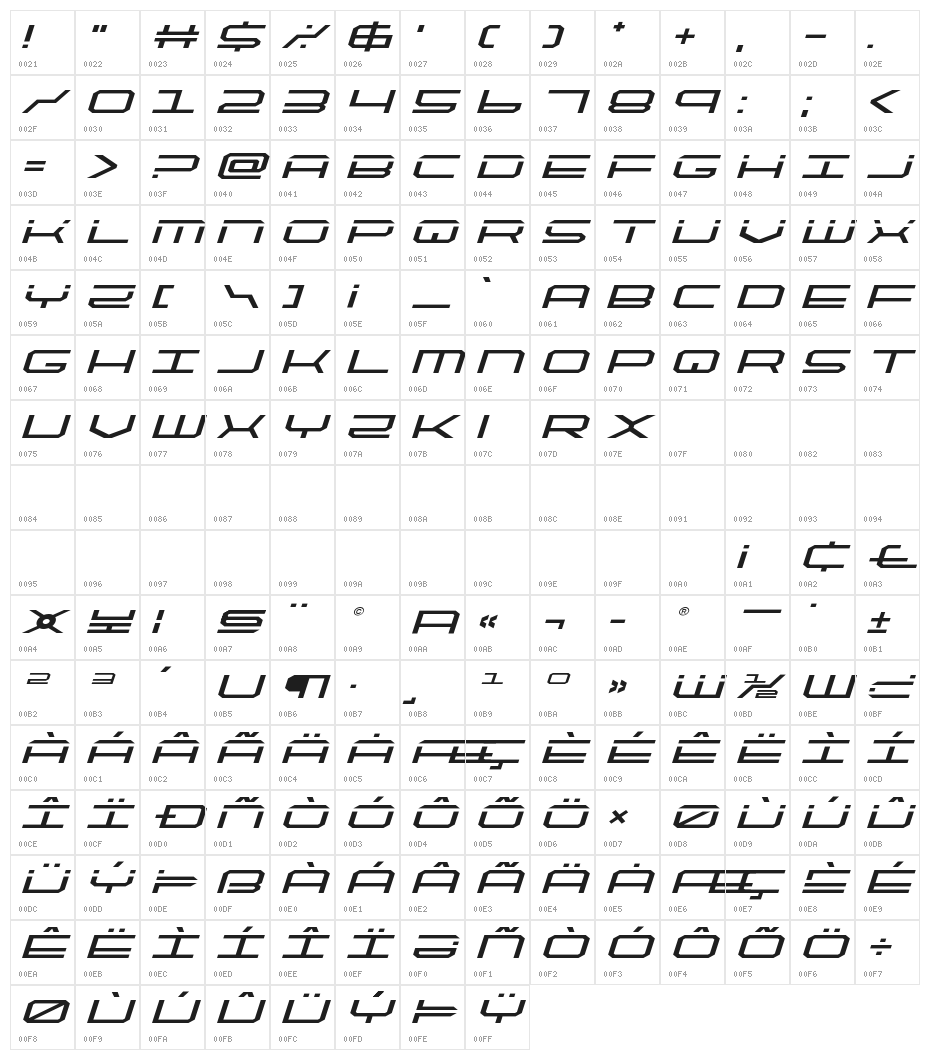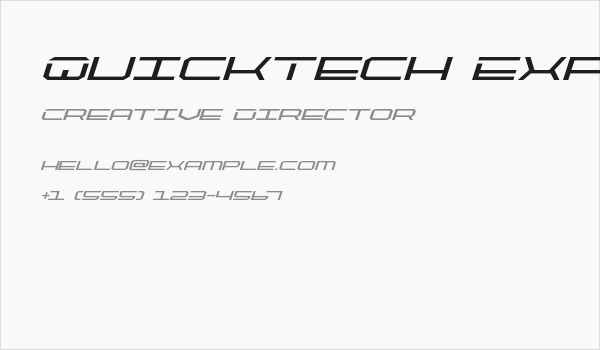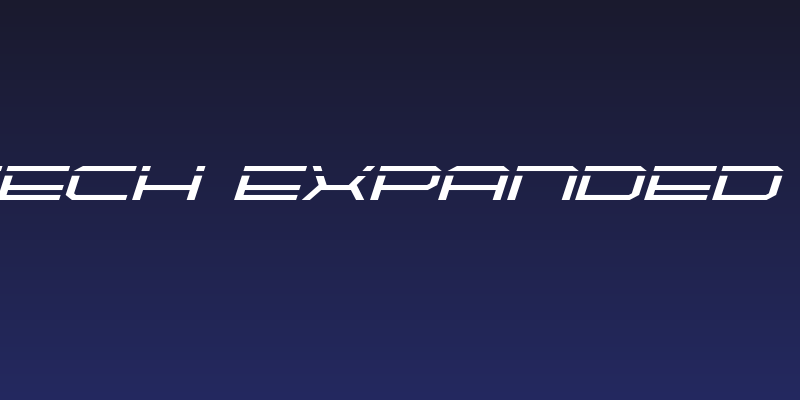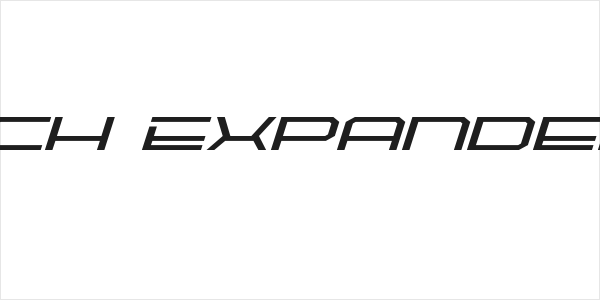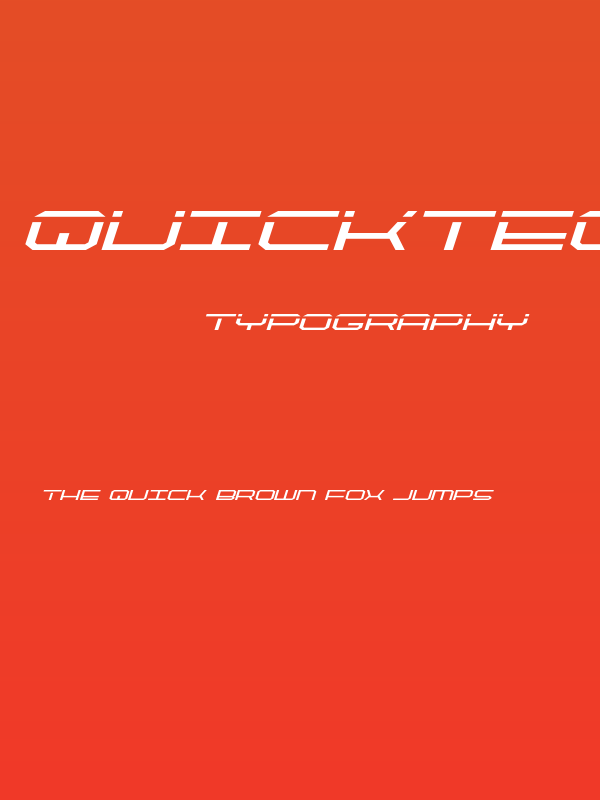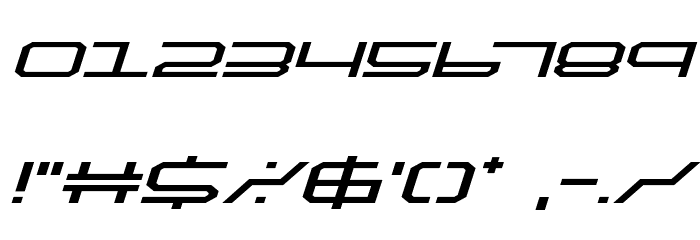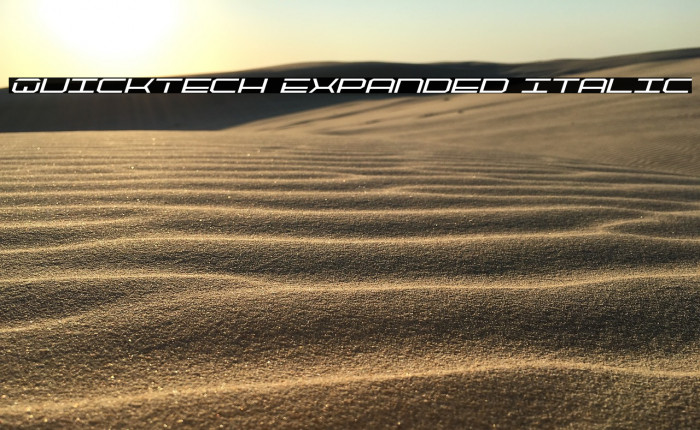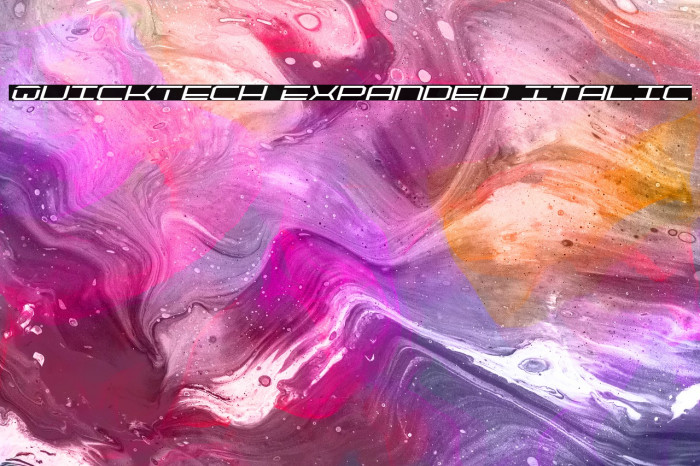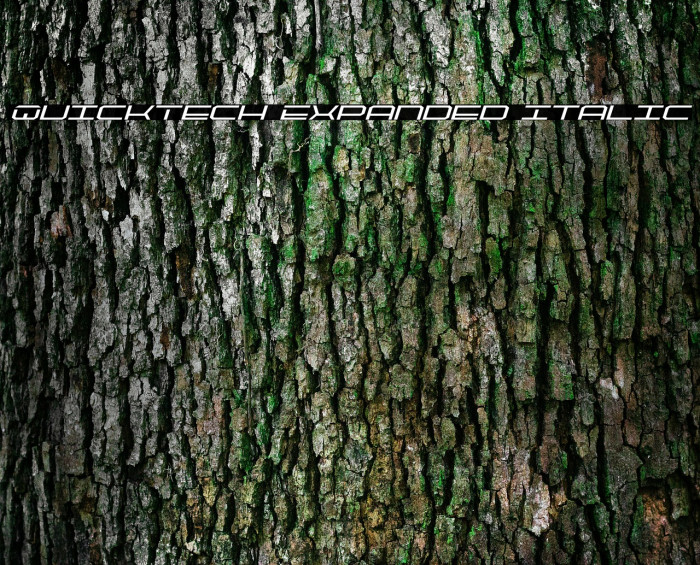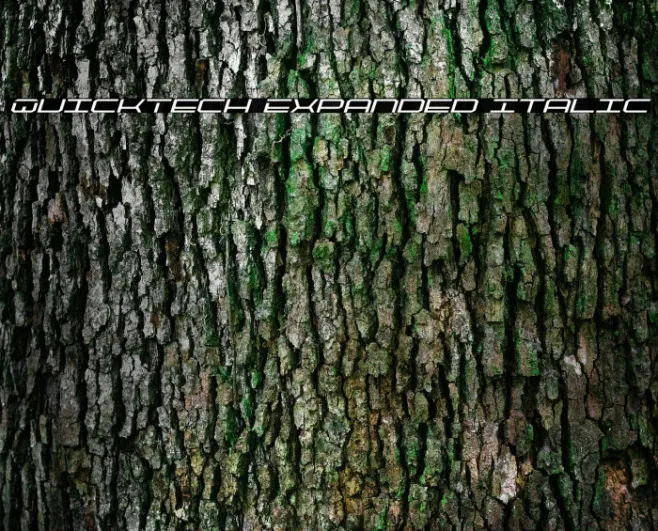
QuickTech Expanded Italic Font
QuickTech Expanded Italic Description
This font features a futuristic and sleek design, characterized by its expanded and italicized letterforms. The characters have a geometric and angular appearance, giving them a modern and tech-inspired look. The strokes are consistent in thickness, providing a uniform and balanced aesthetic. The font's expanded width allows for greater horizontal space between letters, enhancing readability while maintaining a stylish and dynamic presence. Its italic slant adds a sense of motion and speed, making it ideal for projects that require a contemporary and cutting-edge feel.
| Proposed Projects | Ideal for technology branding, sci-fi movie posters, video game titles, and modern web design. |